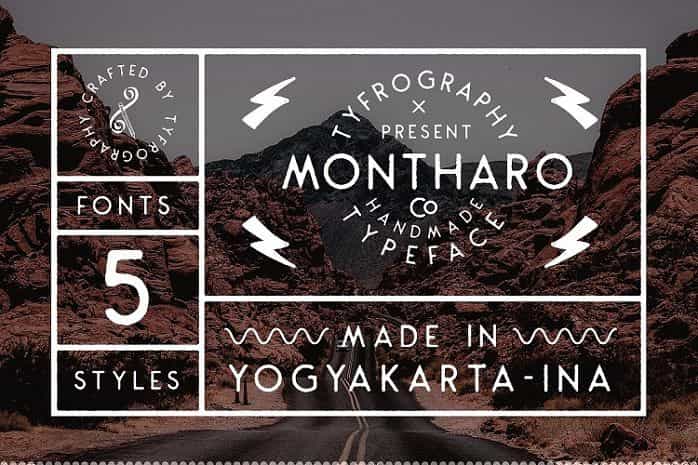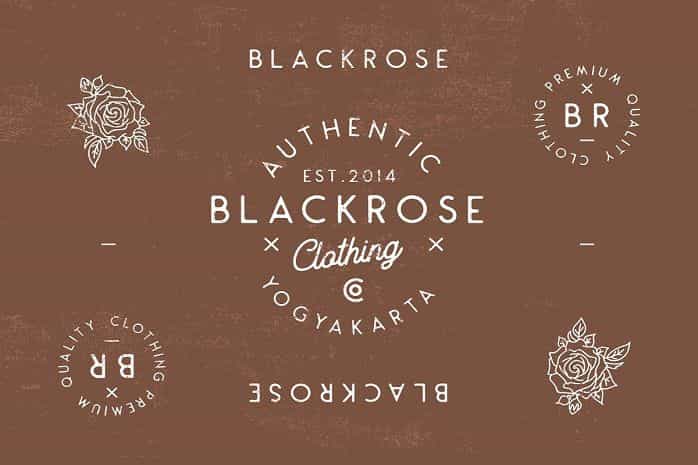
Introducing Montharo! It is made by Tyfrography, this typeface has a premium price but it was very good and now you can get it for free. A font family that has 5 different versions. The character of the rough edge inky, round and stamp version. All the versions of it are suitable for vintage & retro look. What will you get: -Montharo Regular -Montharo Round -Montharo Stamp -Montharo Edge -Monhtero Inky